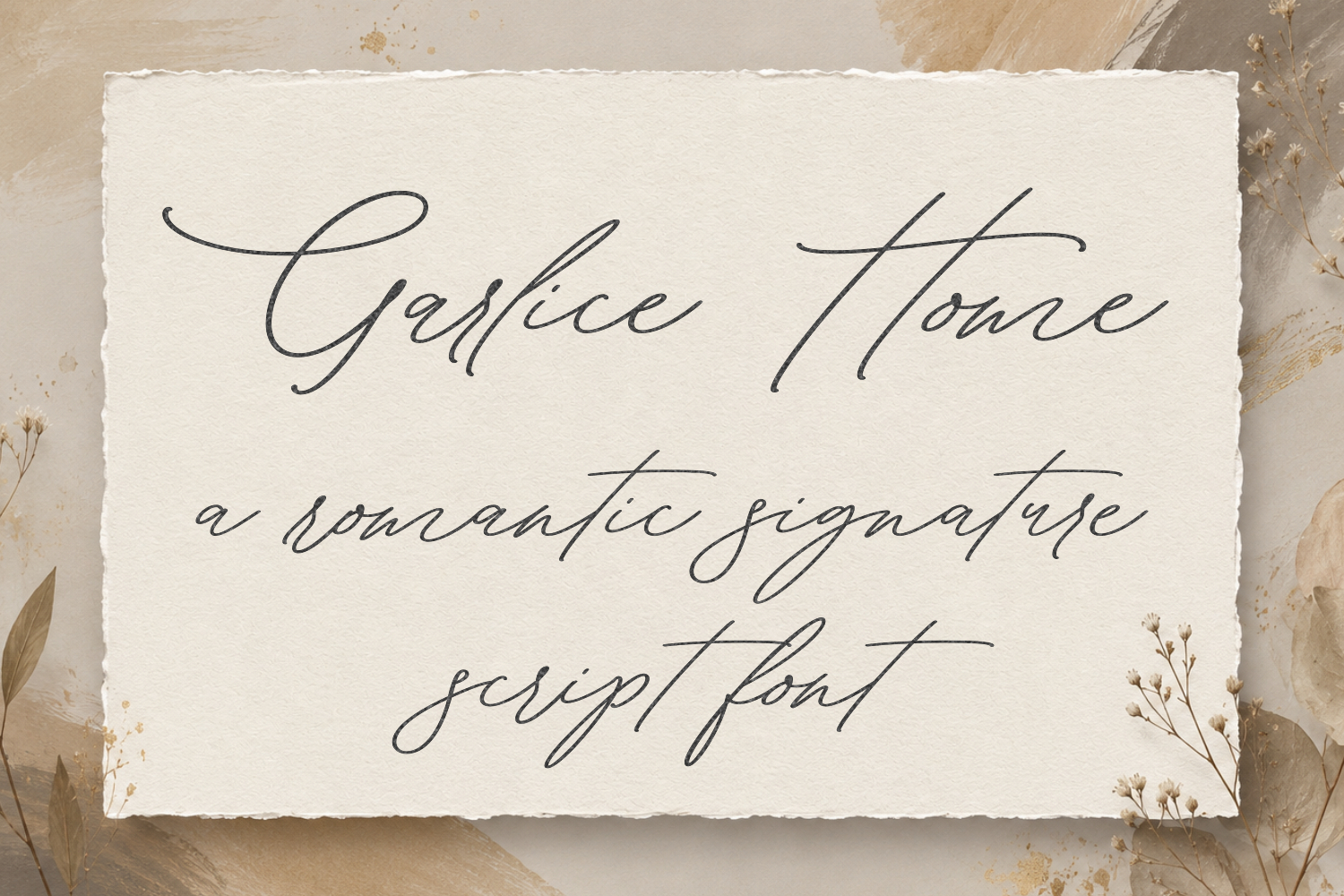
Garlice Home is a romantic signature script font featuring elegant handwritten strokes and carefully crafted ligatures. Its natural flow and authentic signature style make it perfect for branding, logos, wedding invitations, packaging, social media, and luxury design projects.